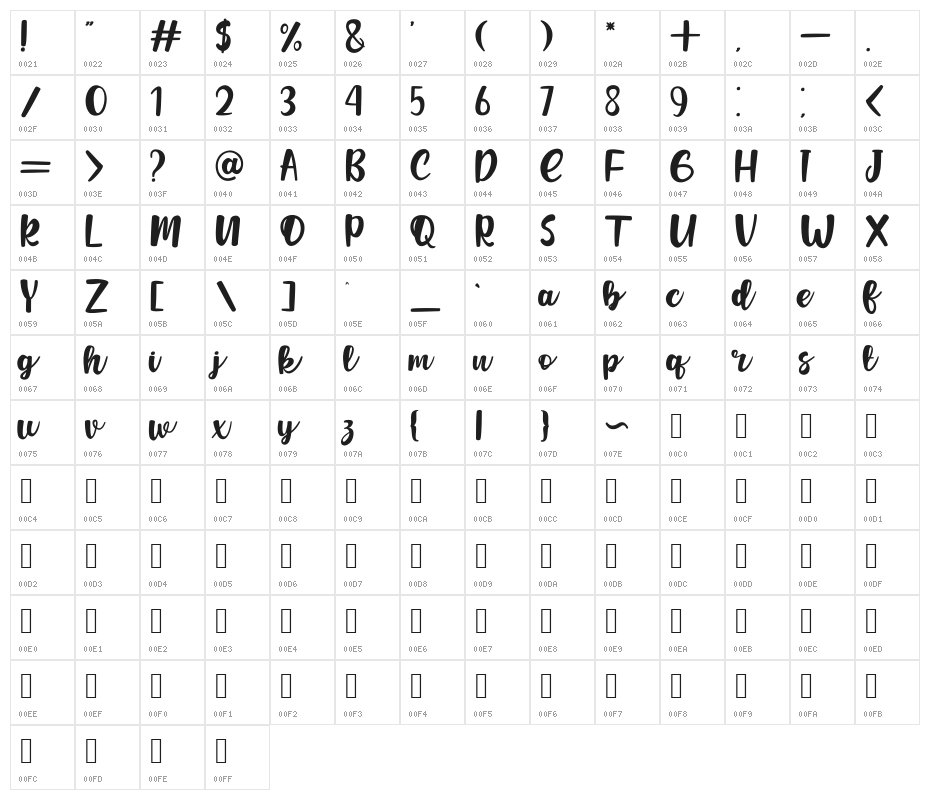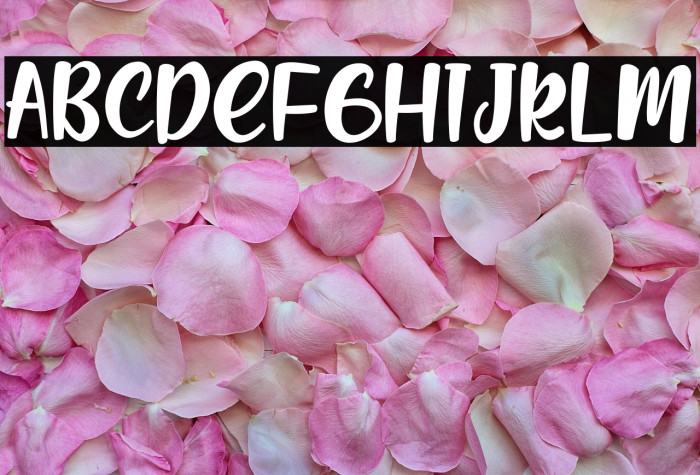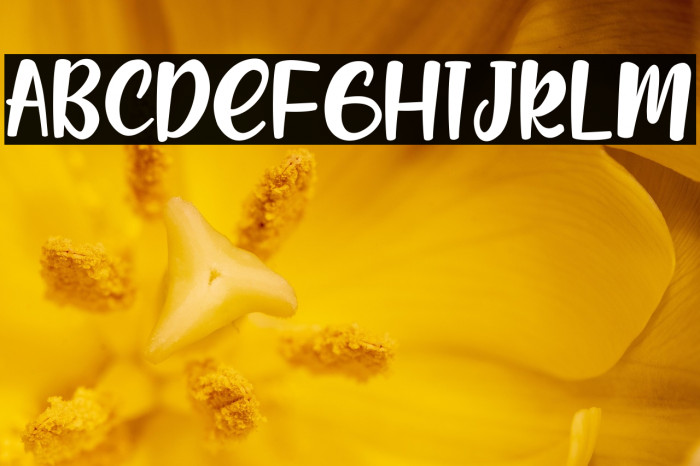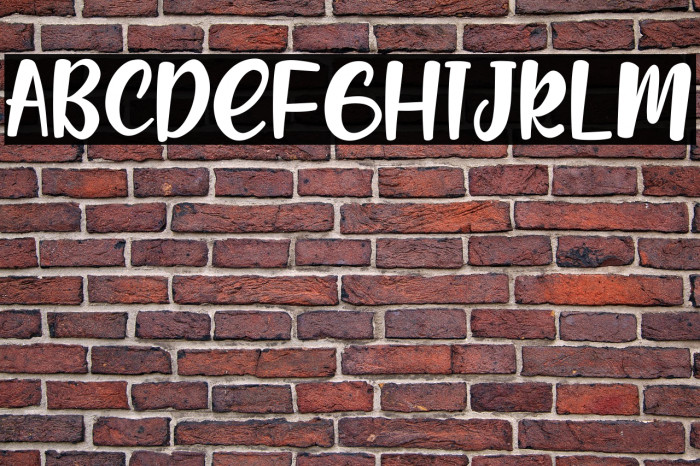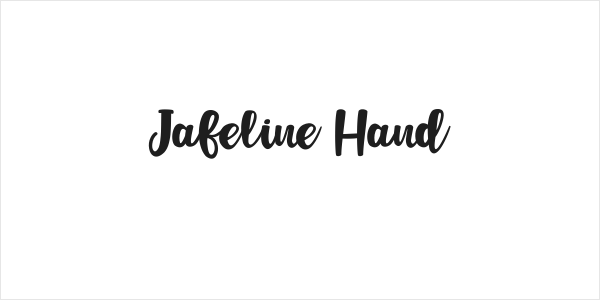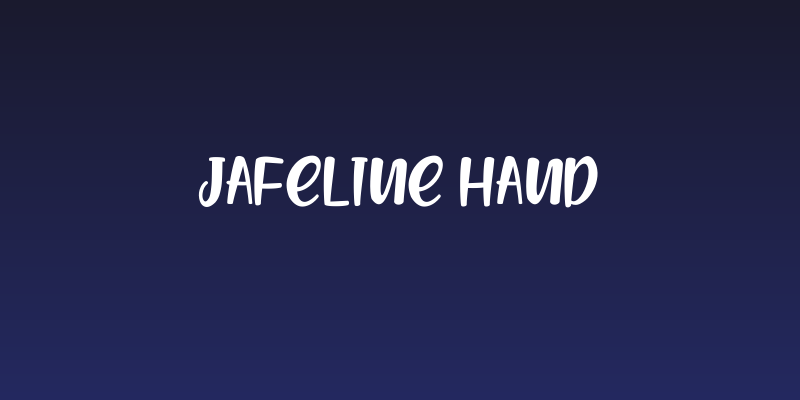
Jafeline Hand Font
Jafeline Hand Description
This font features a bold, flowing script style that exudes a sense of elegance and playfulness. The characters are connected in a smooth, cursive manner, giving it a handwritten appearance. The uppercase letters are slightly more structured, while the lowercase letters maintain a fluid and dynamic form. The numbers and special characters are consistent with the overall style, ensuring a cohesive look. This font is perfect for adding a personal touch to any project, with its bold strokes and artistic flair making it stand out.
Use CaseLogos, Headlines, Invitations
Proposed ProjectsIdeal for wedding invitations, greeting cards, branding, and logo design.